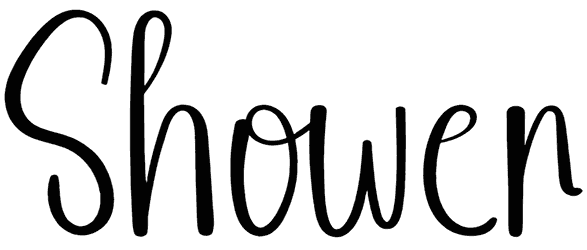
Shower Font
Shower, with its flaws and features, offers a refreshing break from the sterile monotony of digital design. This handwritten font adds a sense of warmth and humanity to any project and invites viewers to connect with the message on a deeper and more personal level.
From wedding invitations to logos and book covers, this script font is versatile for any creative endeavor. So the next time you’re looking for the right font to convey your message, consider the unique beauty of Shower.